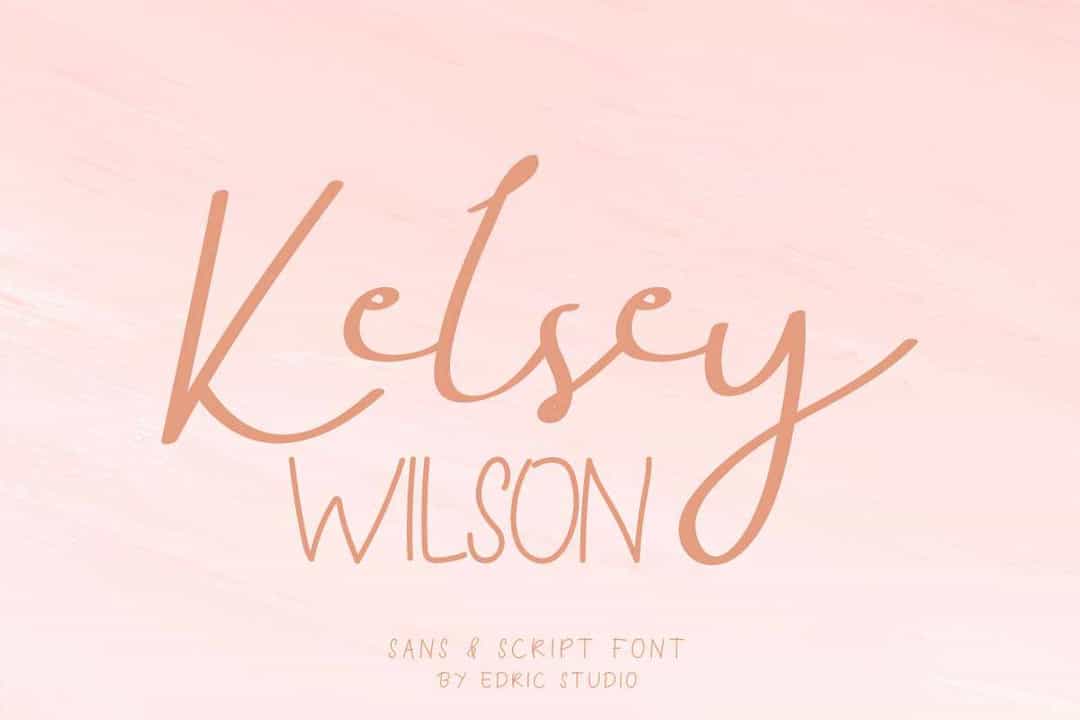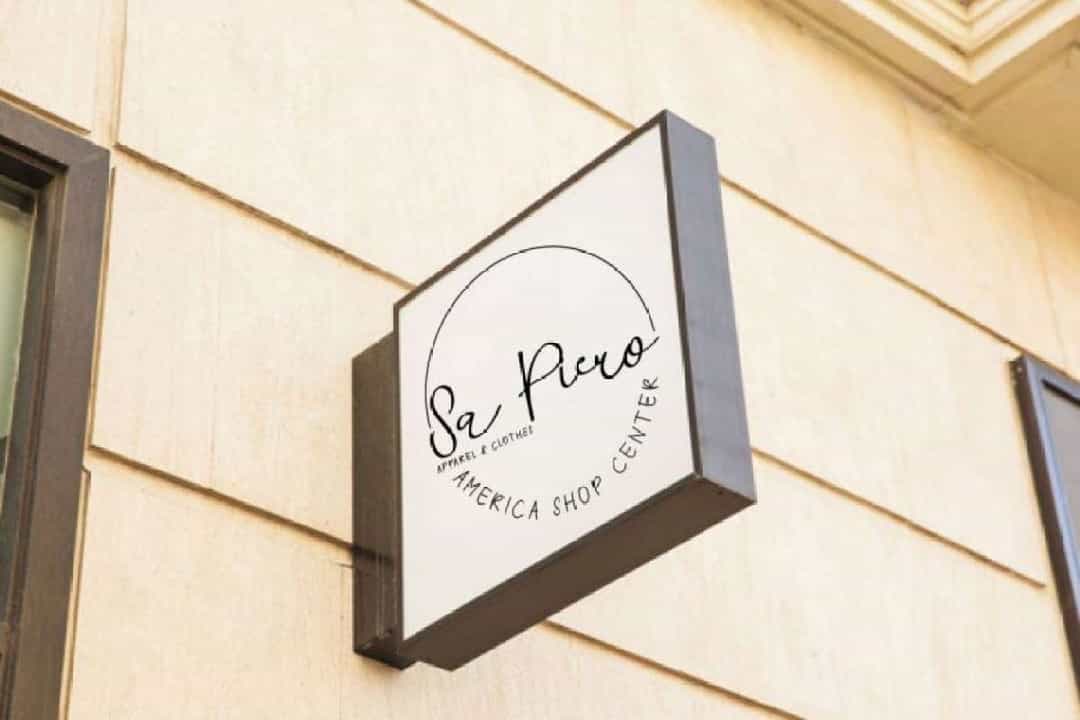
Discover Kelsey Wilson Font Duo, part of the Sans Serif Handwritten collection—a versatile and unique font perfect for adding a personal touch to your projects. Download it for free and enjoy crafting designs with style, from invitations to social media posts. This font is available exclusively for personal use, giving you the freedom to create without limits. Unlock your creativity with Kelsey Wilson Font Duo today!
Kelsey Wilson Font Duo is a special typeface, which has the style of its own and elegance. The typeface is a perfect combination of characters set, well-kerned and spaced. The style character of this font is the elegant, stylish and sophisticated handwriting style.